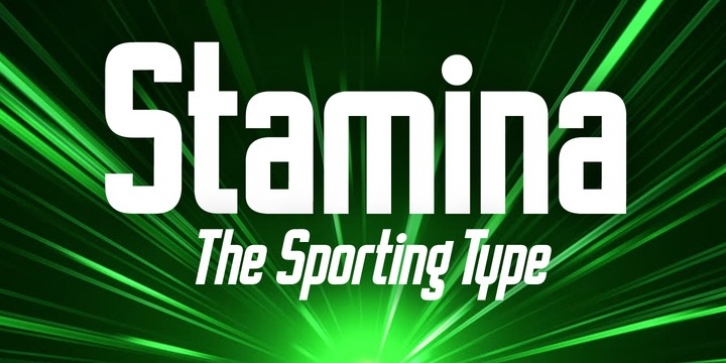
Publisher: Studio K
Bold and compact, Stamina is a solid, sporty, font that punches beyond its weight. Ideal for product logos, headlines and signage, it has both power and panache!